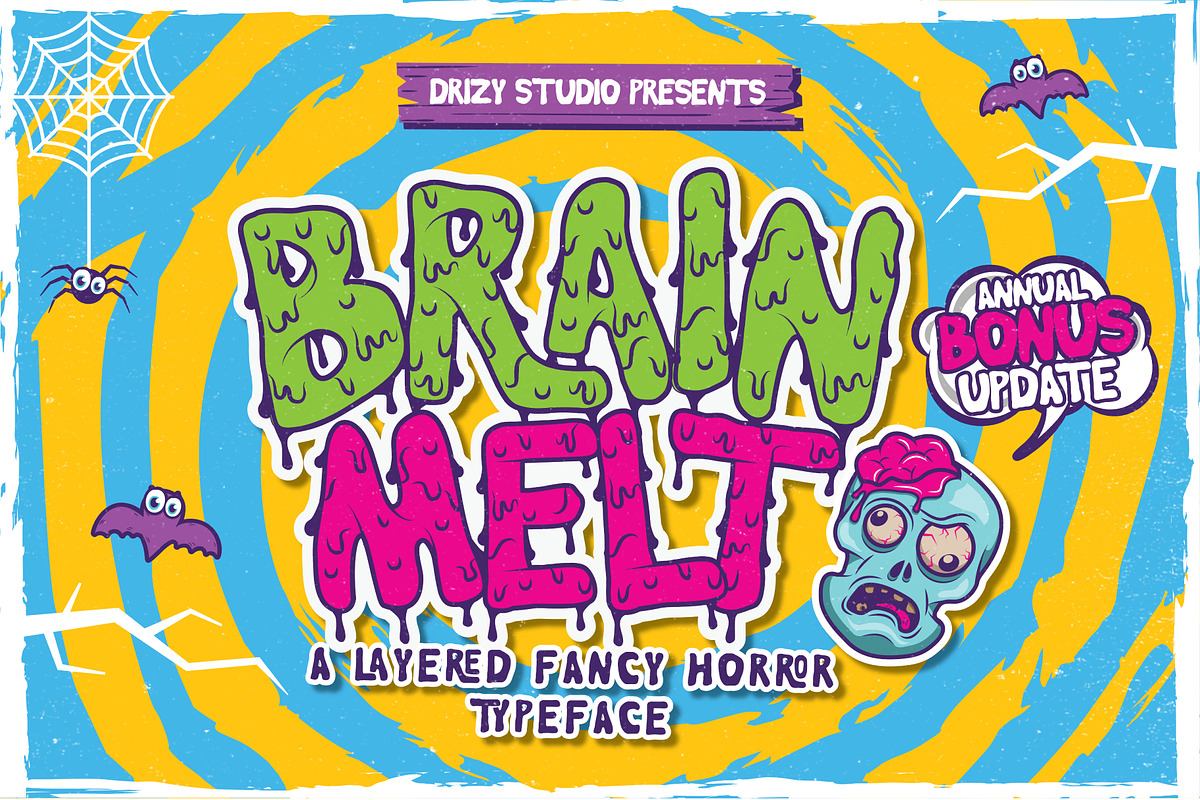
Brain Melt Layered Typeface Free Download
The Brain Melt Layered Typeface Free Download is a bold and striking layered font designed for maximum impact. Perfect for creating eye-catching headlines, posters, logos, and graphic design projects, this font allows you to experiment with different layering effects for a modern, dynamic look. Please note, for commercial use, a license must be purchased. You can download it for free for testing purposes.
With its unique layered design, the Brain Melt Layered Typeface Free Download is ideal for projects that require a bold, standout look. Whether you're working on creative marketing materials, custom designs, or high-energy branding, this font gives your work an exciting and creative edge.